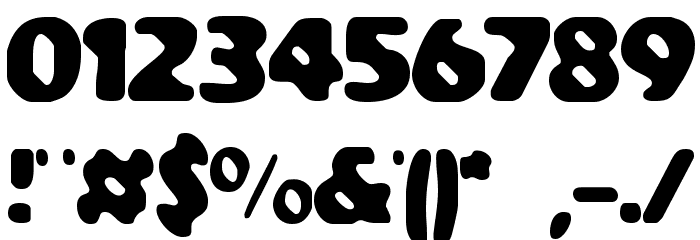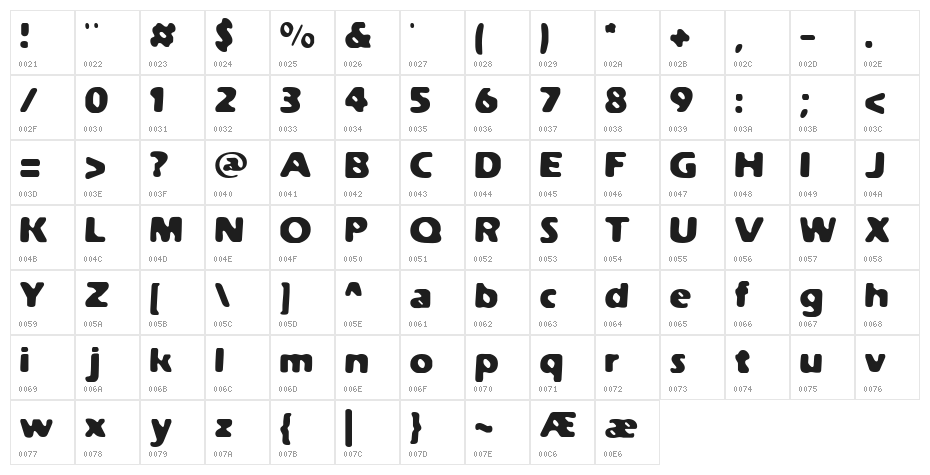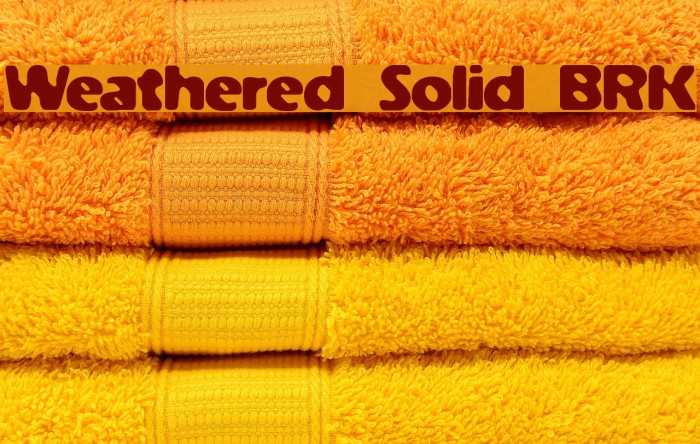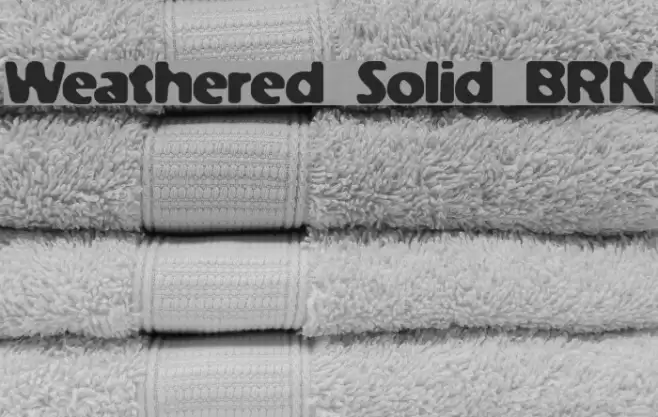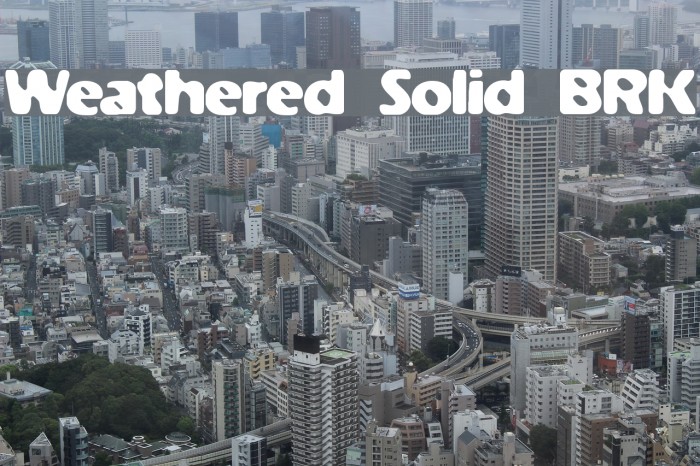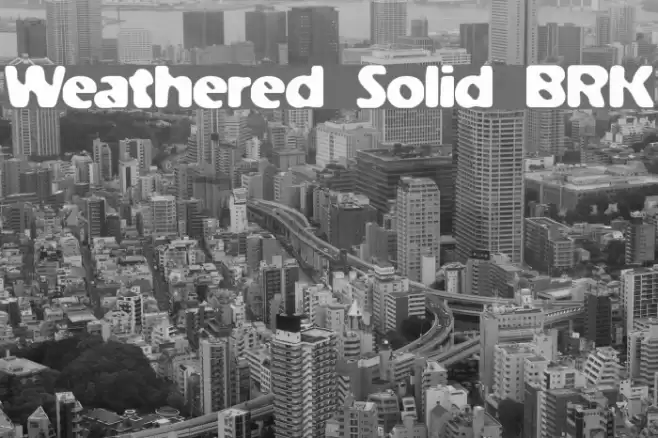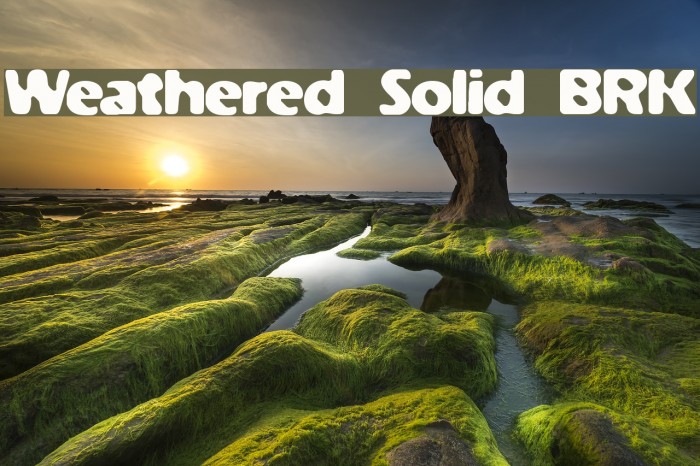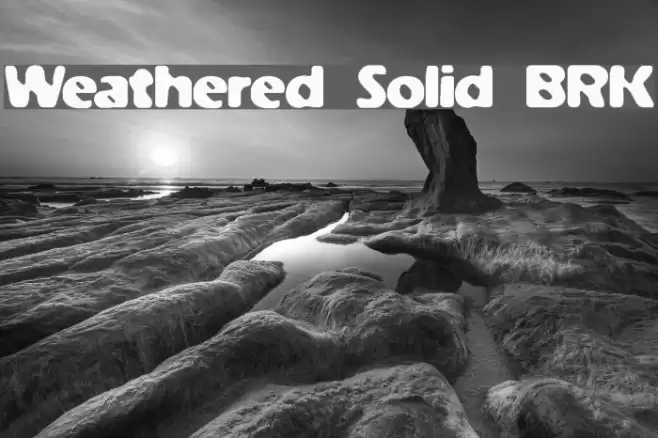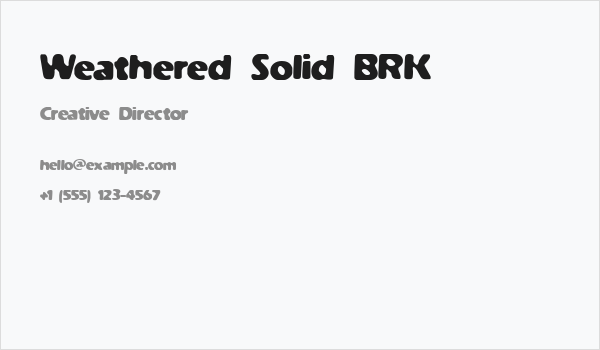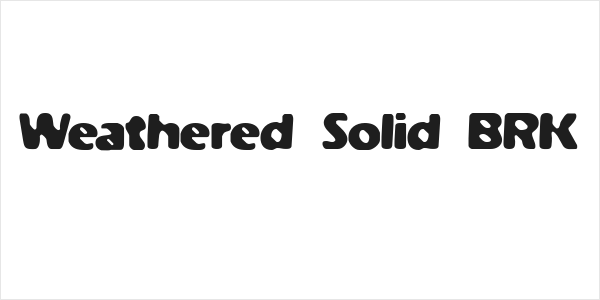
Weathered Solid BRK Font
Weathered Solid BRK Description
This font features a bold and rounded style with a playful and slightly rugged appearance. The characters are thick and solid, giving a strong visual impact. The edges are smooth, yet the overall design has a weathered look, adding a unique character to the typeface. It maintains a consistent weight throughout, with each letterform exhibiting a uniform thickness. The font includes both uppercase and lowercase letters, numbers, and a variety of special characters. Its distinctive style makes it suitable for eye-catching designs.
| Proposed Projects | Ideal for posters, logos, headlines, and any design requiring a bold statement. |